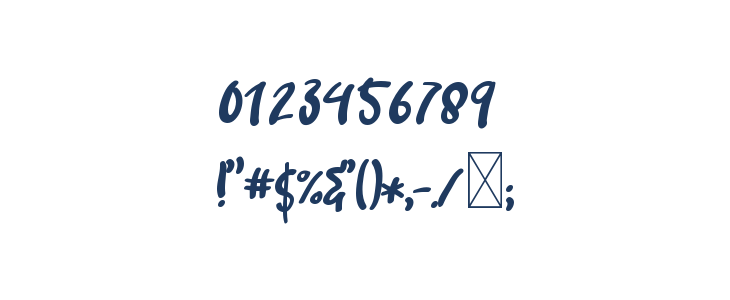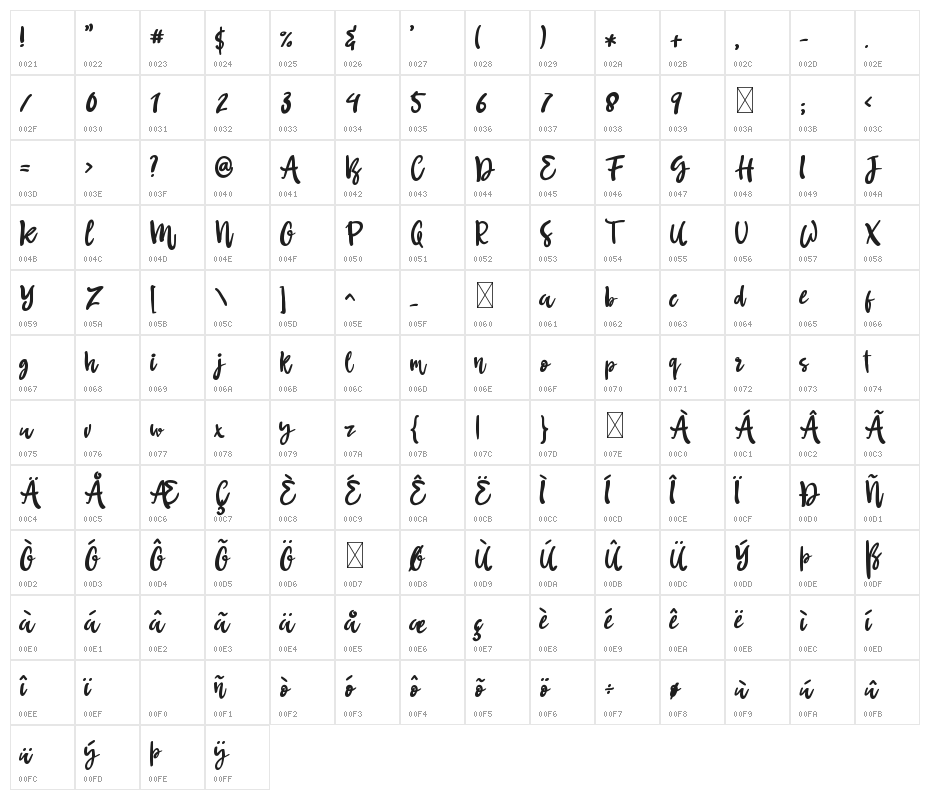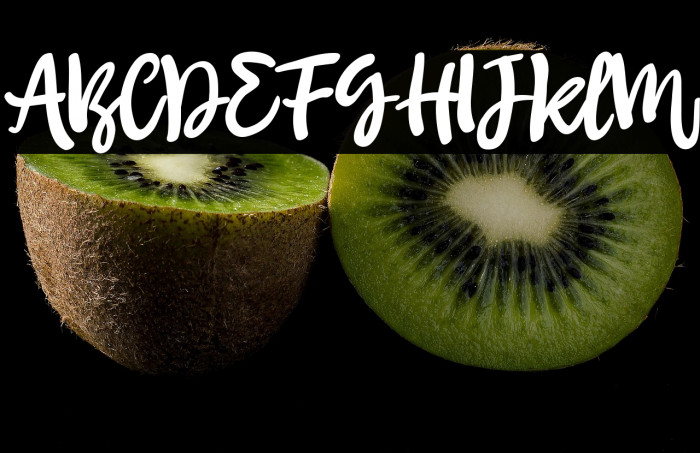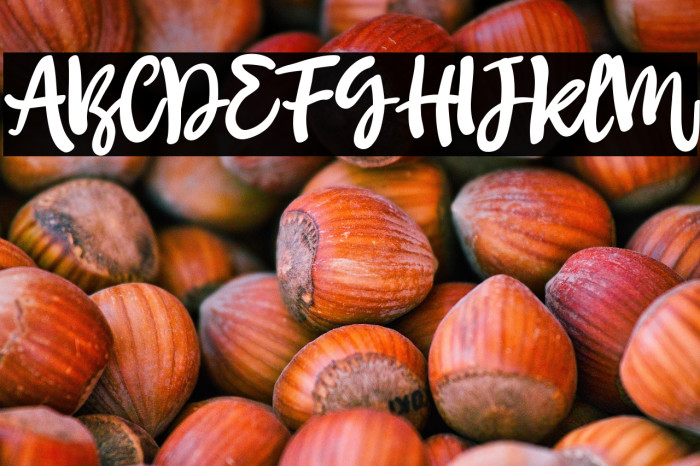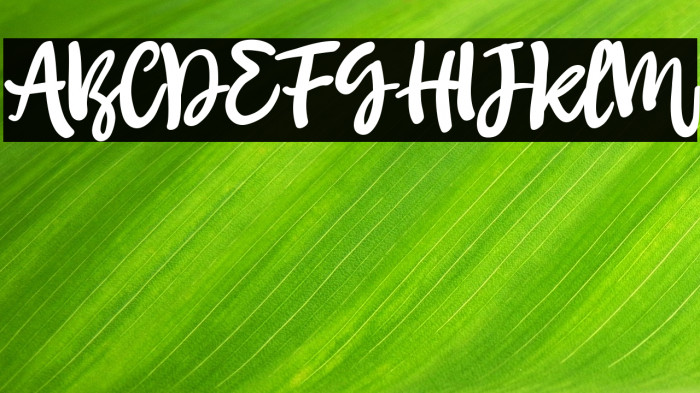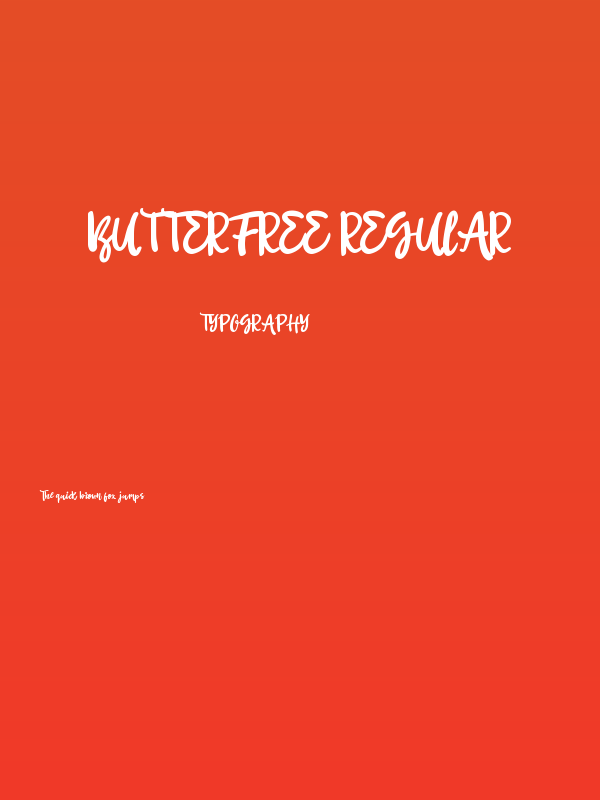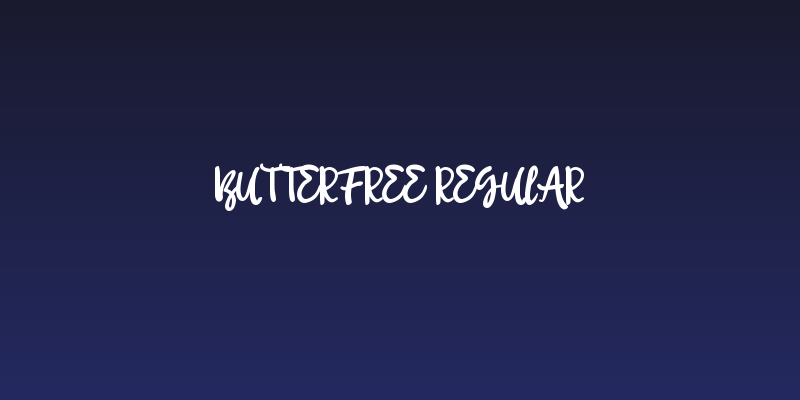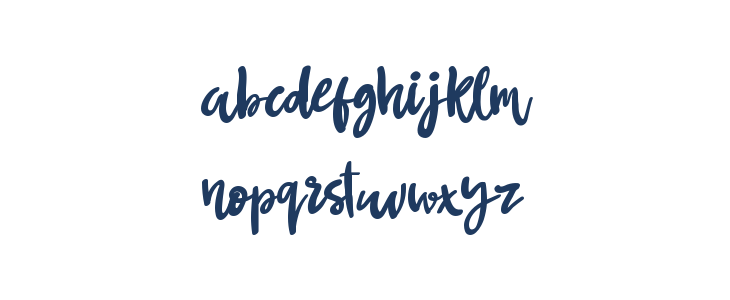
Butterfree Regular Font
Butterfree Regular Description
This font exudes a playful and energetic vibe with its bold, flowing script style. The characters are crafted with a brush-like appearance, giving them a hand-drawn feel that is both casual and artistic. The uppercase letters are slightly larger and more pronounced, while the lowercase letters maintain a consistent flow, enhancing readability. Numbers and special characters are designed with the same lively flair, ensuring a cohesive look across all text. The font's dynamic strokes and smooth curves make it ideal for creative projects that require a personal touch.